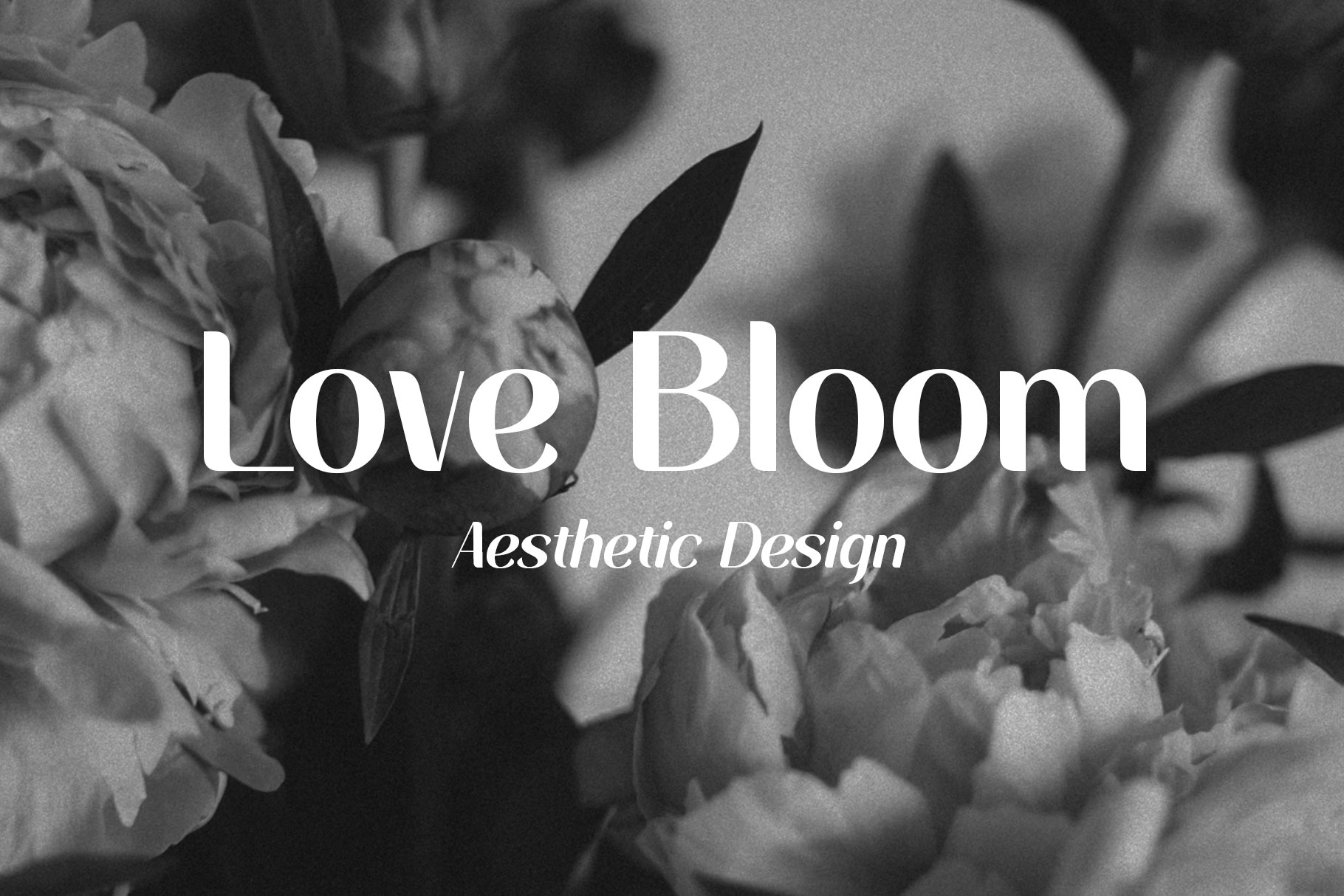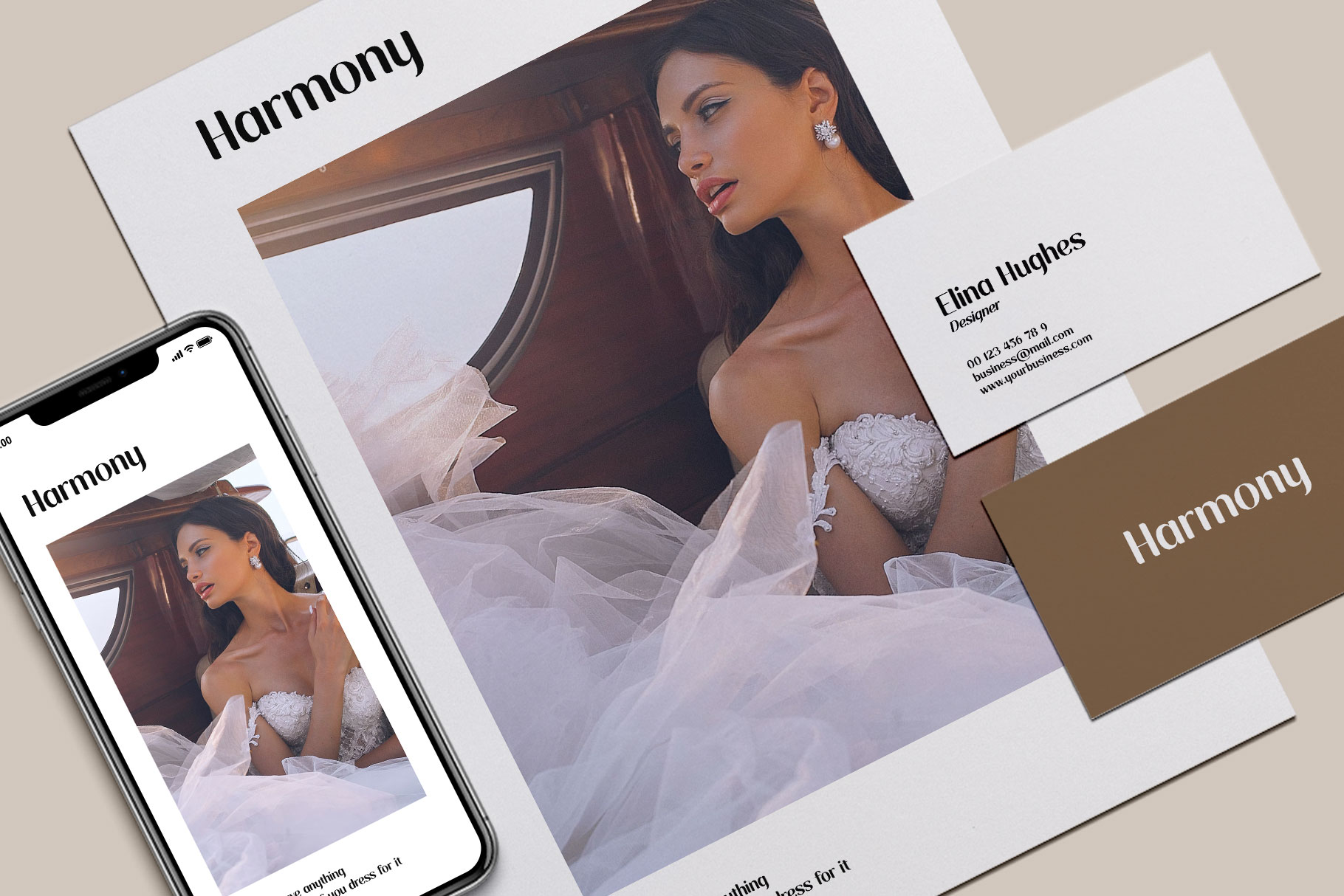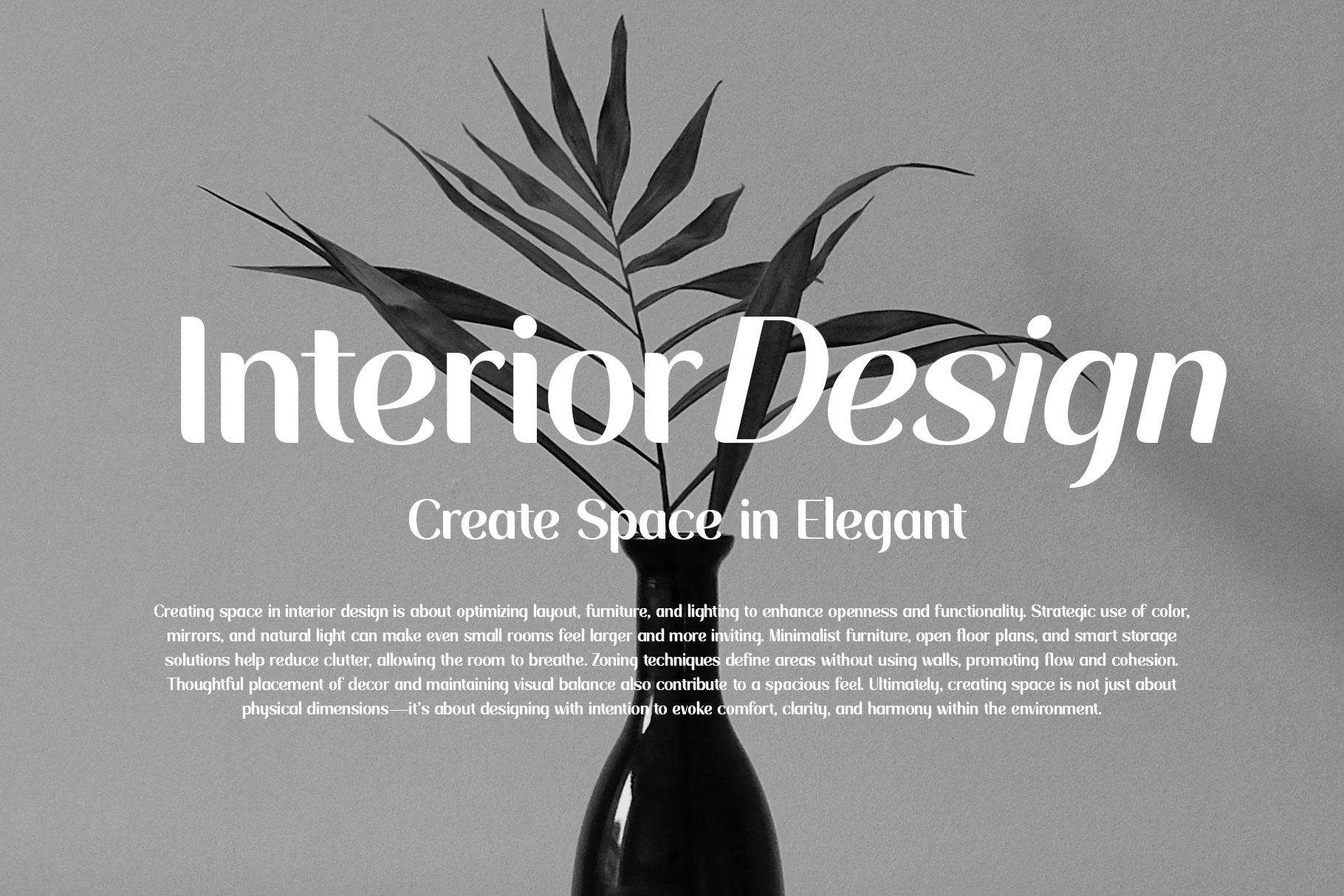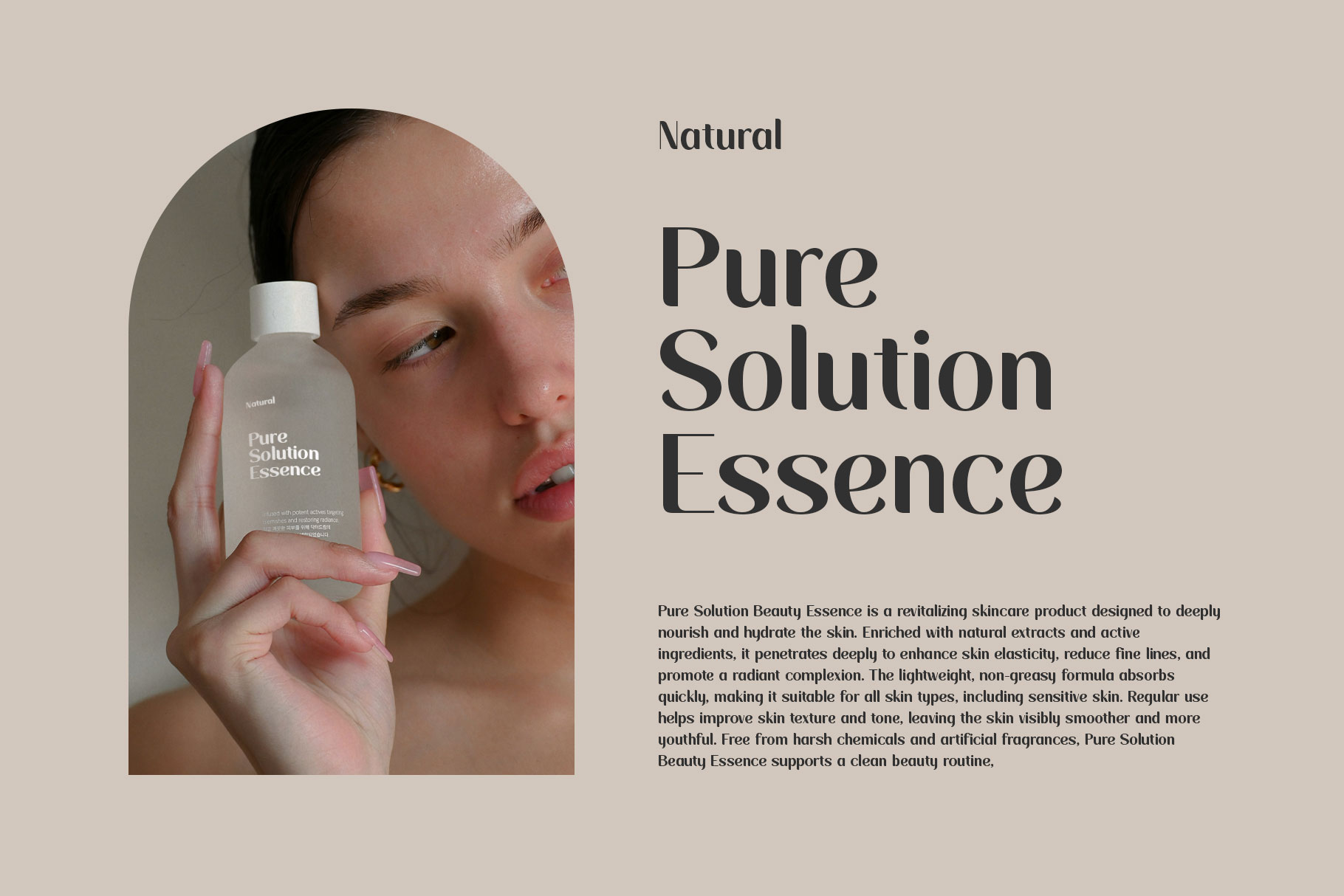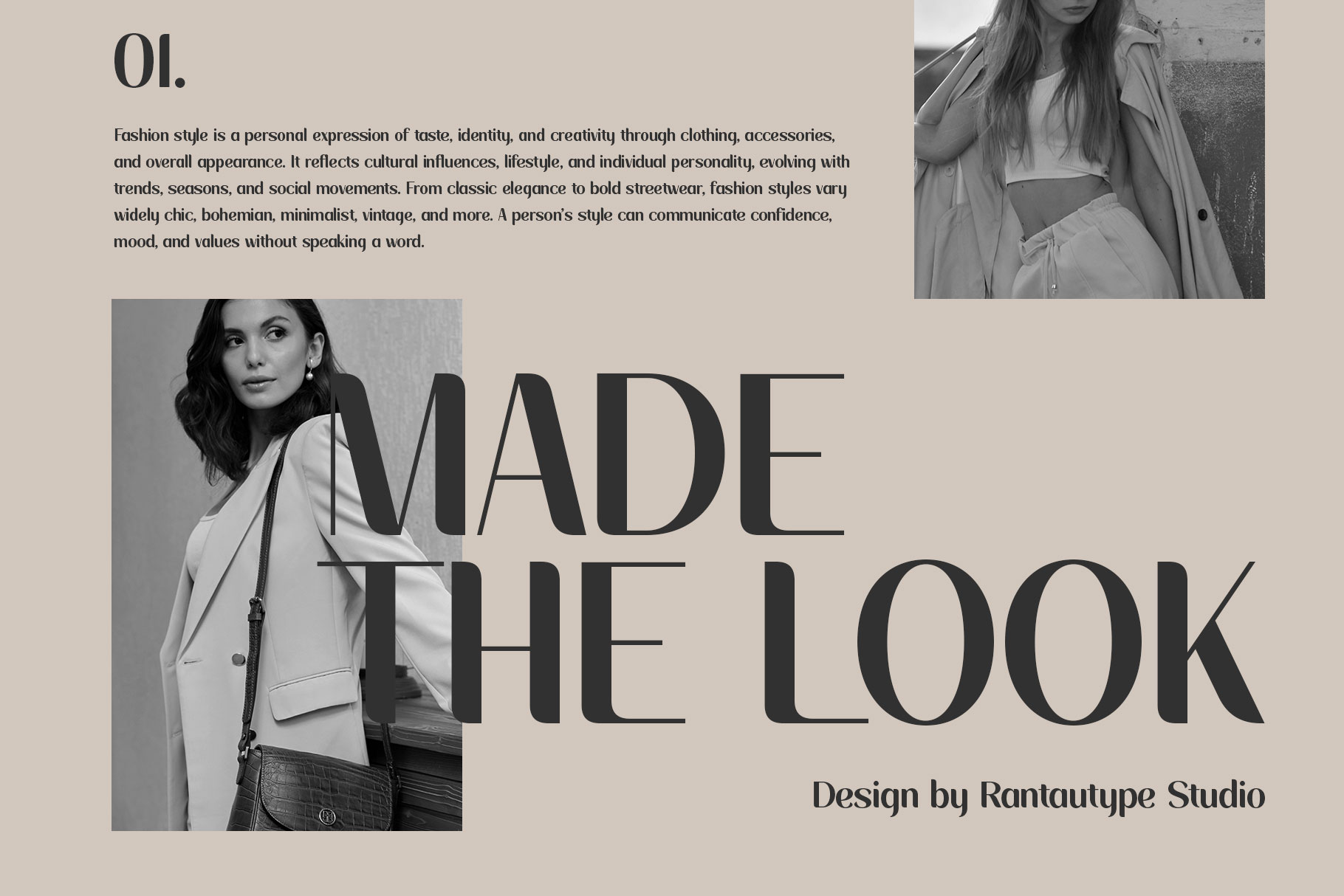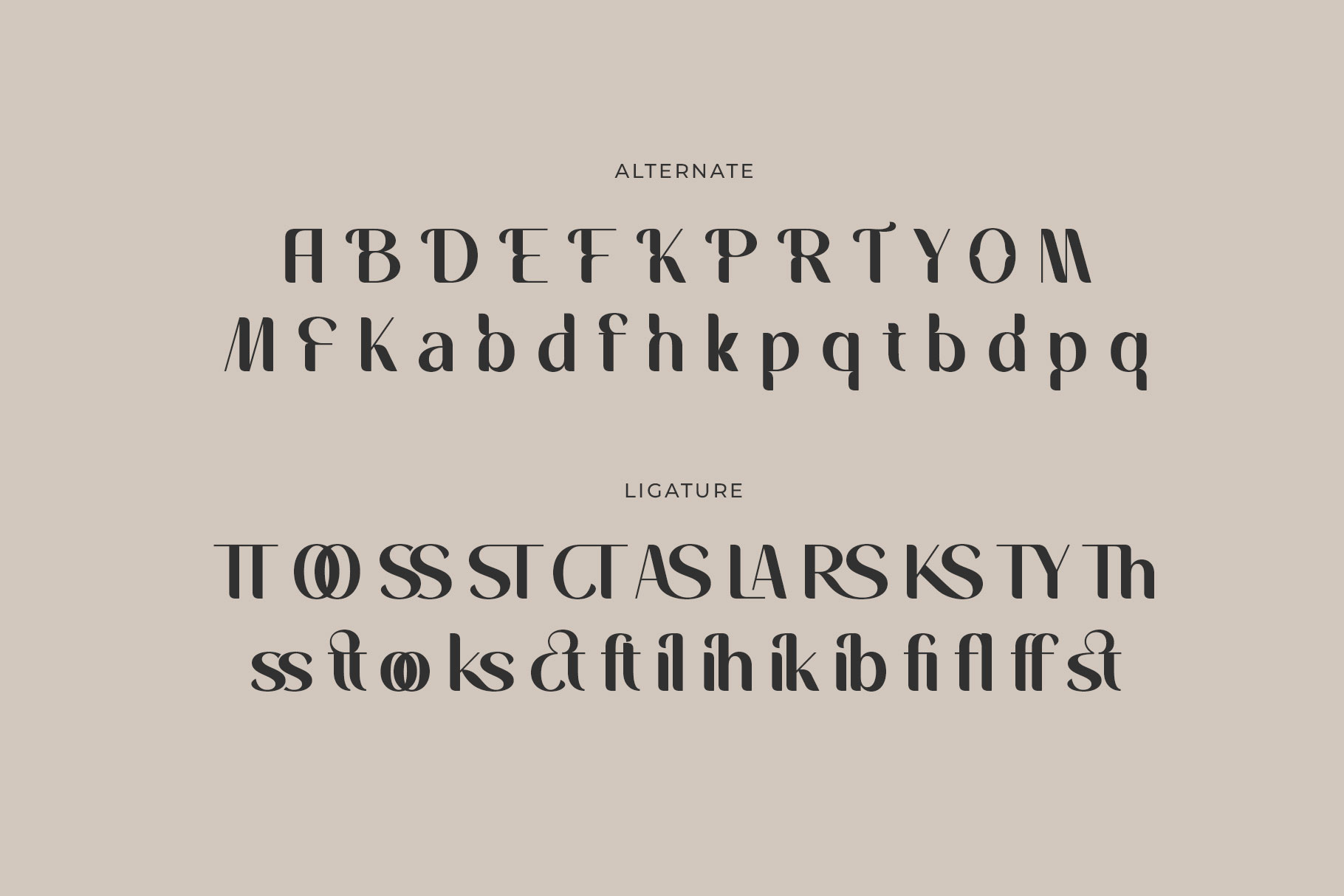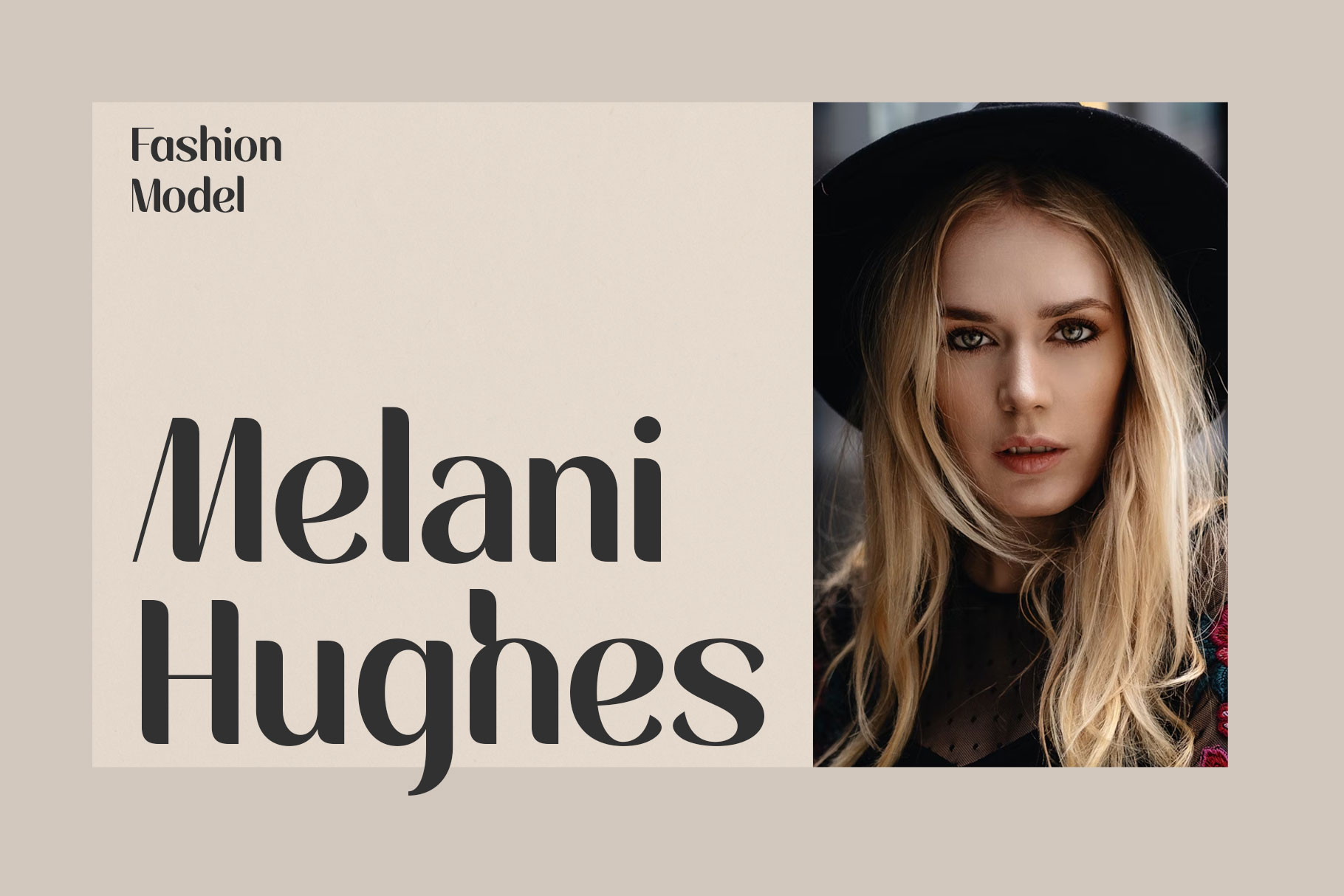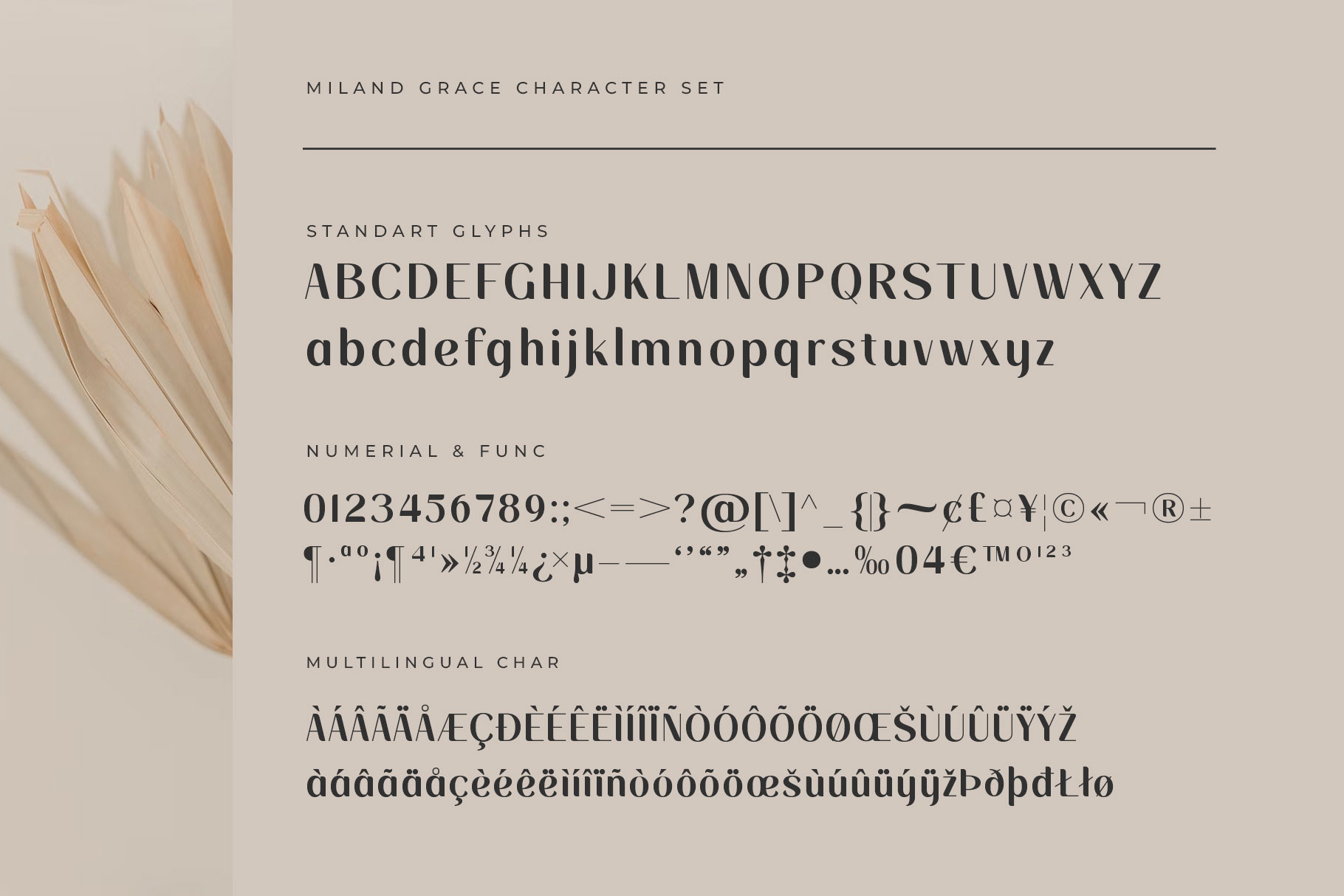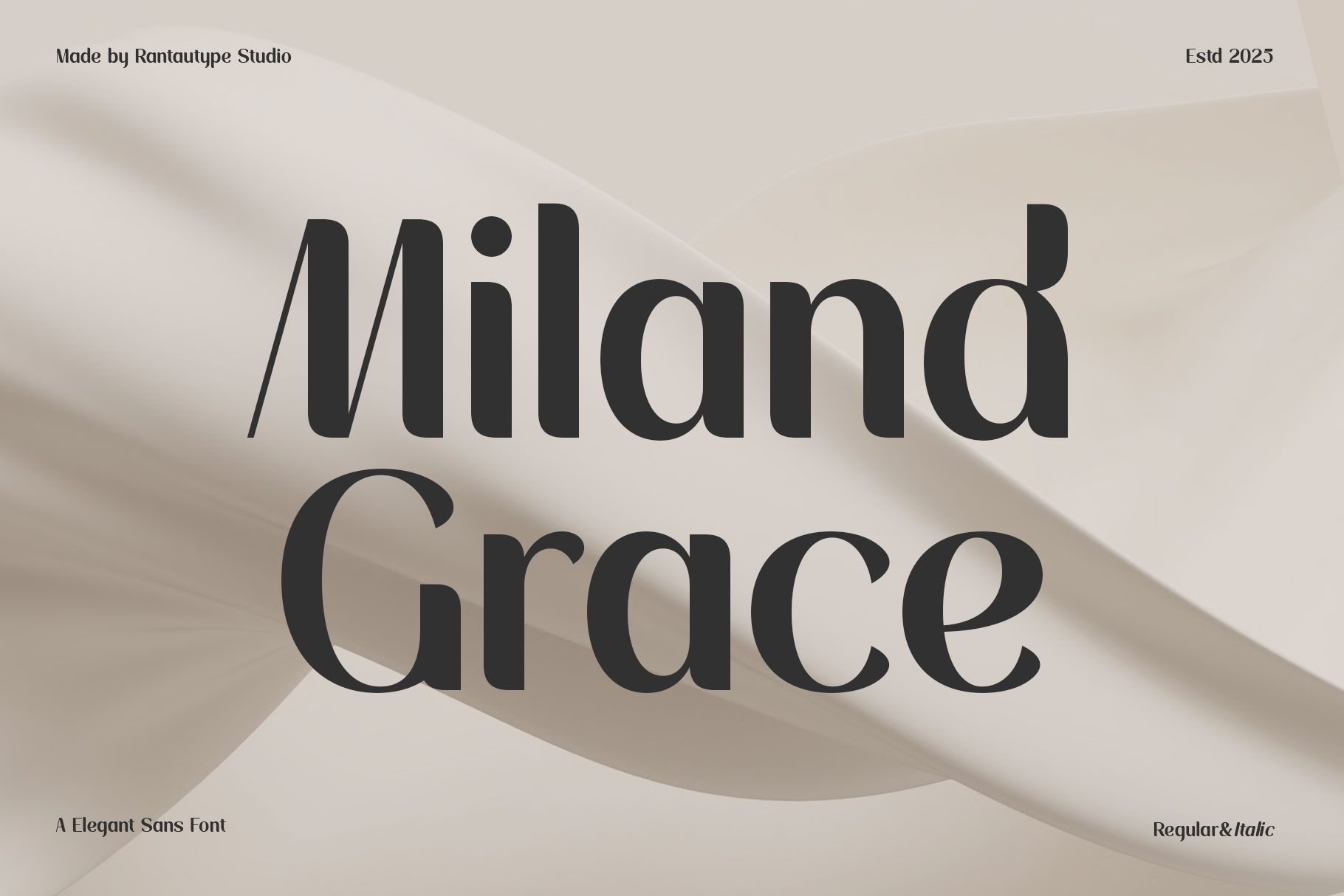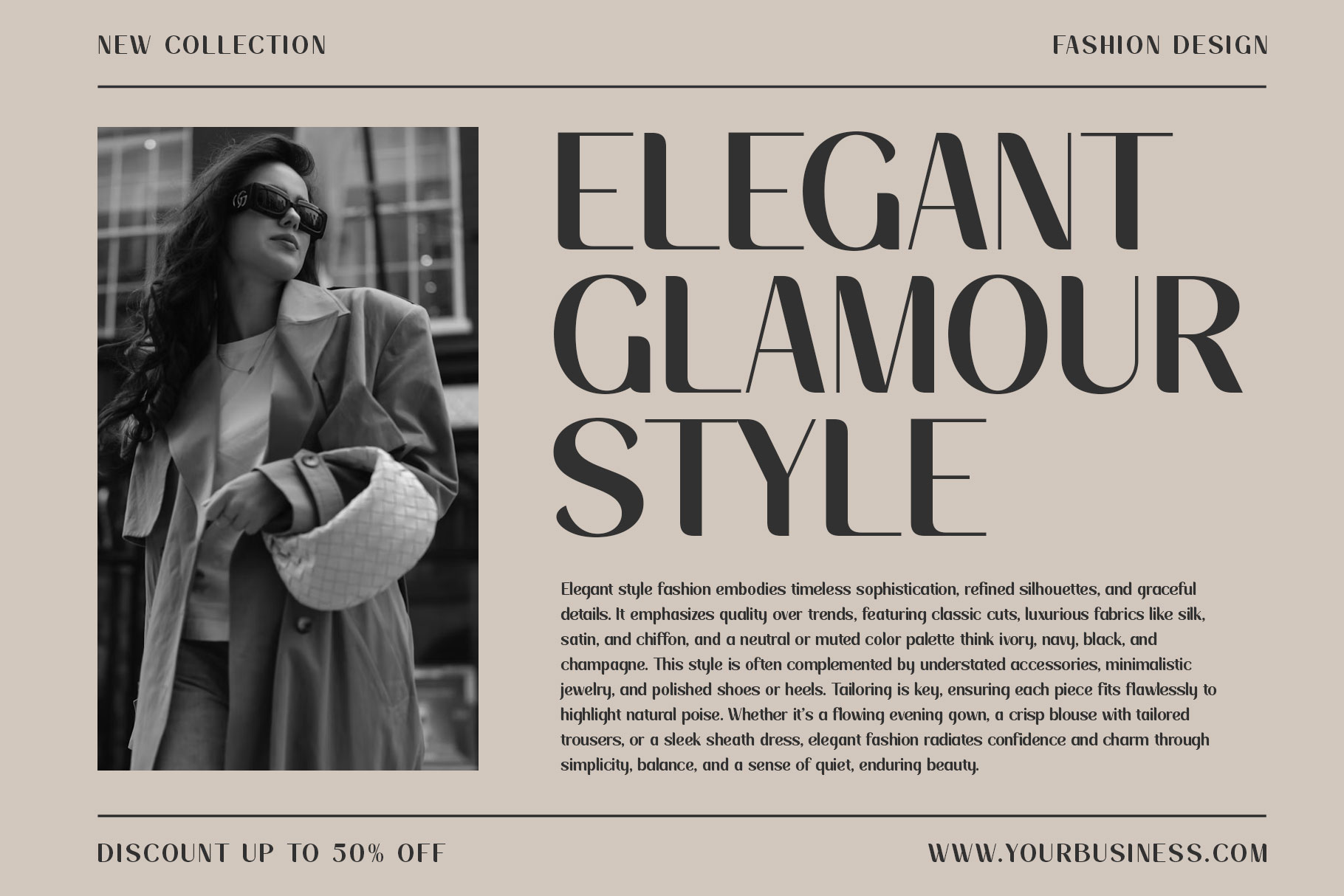
Miland Grace Elegant Display Sans Font
Miland Grace is combines modern minimalism with refined sophistication. Miland Grace is a perfectly choice for any creative endeavor, chic, lifestyle design such as logotype, advertisements, watermark on photography, stationery, branding project, display and magazine, invitation, corporate brand, product design, label, business project and many other project with modern touch.